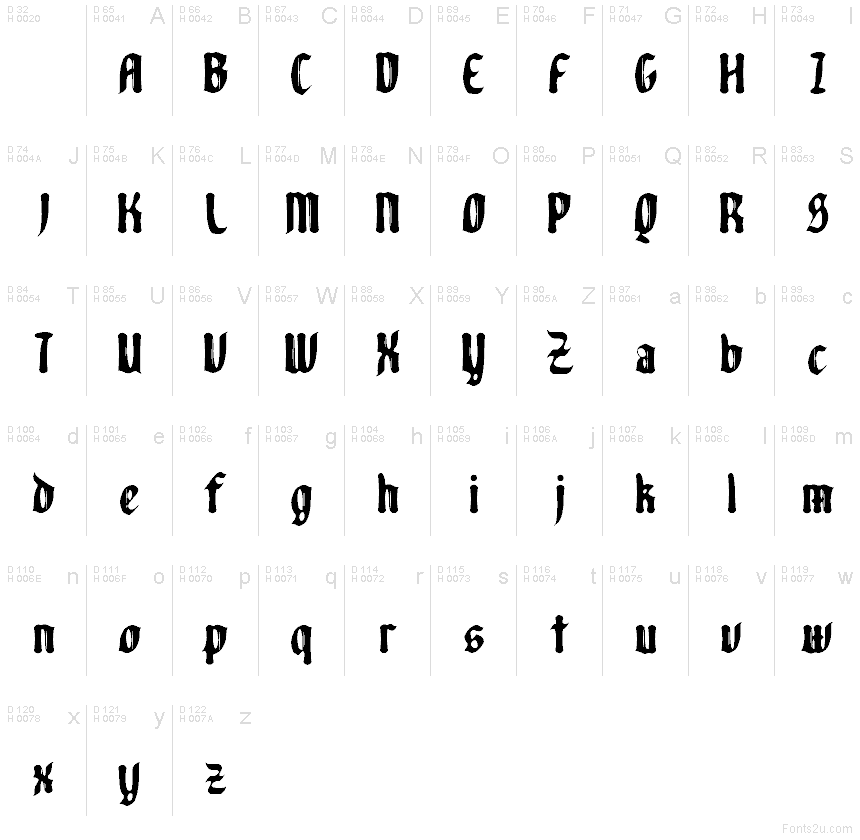
CSBlackenDrawn-Regular Demo
CS Blacken Drawn font is a gothic masterpiece by Craft Supply Co. intended to mimic the aesthetic of handwritten fonts. It has a medieval-inspired feel with dark-toned ornamental flourishes and artistic details that lend it beautiful dark-themed decorative elements. The overall dramatic appearance further makes the condensed font’s presence noticeable in different projects.
Free CS Blacken features will come in handy for branding and identity projects, packaging design, books, posters, headlines, cards (invitations & greetings), magazines, stationery elements, labels, and badges.